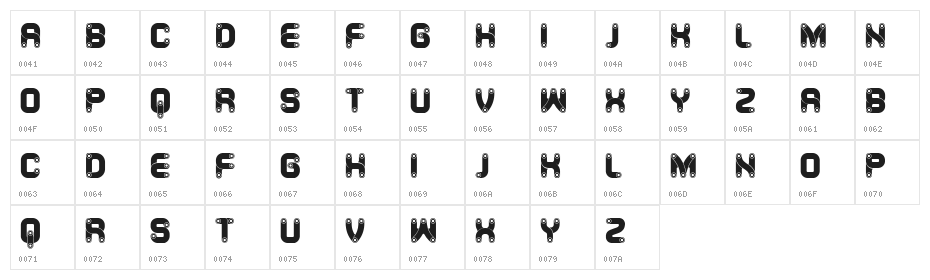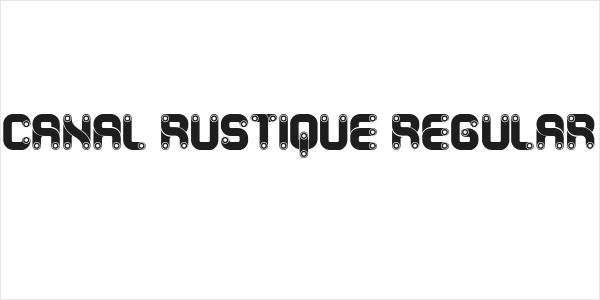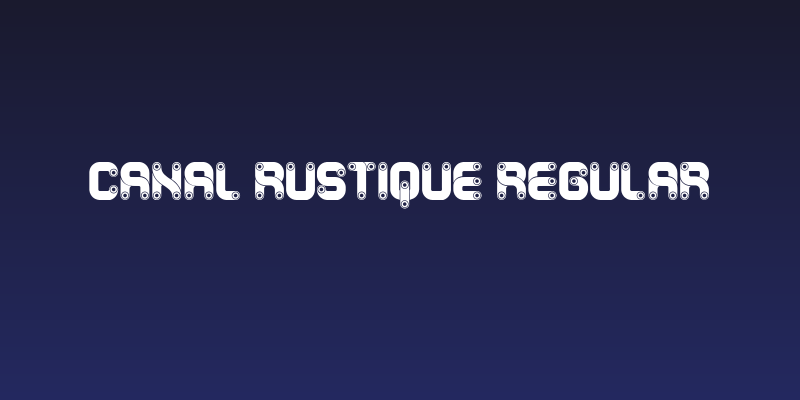
Canal Rustique Regular Font
Canal Rustique Regular Description
This font features a bold and unique design with a mechanical and industrial aesthetic. Each character is constructed with a series of circular elements and connecting lines, giving it a gear-like appearance. The uppercase letters are particularly striking, with a consistent use of rounded edges and circular motifs that create a cohesive look. The font's style is reminiscent of machinery and engineering, making it ideal for projects that require a strong, technical feel. The characters are evenly spaced, ensuring readability despite the intricate design. This font is perfect for creating eye-catching headlines or logos that need to convey a sense of innovation and modernity.
| Proposed Projects | Ideal for technology branding, industrial-themed posters, and innovative product packaging. |